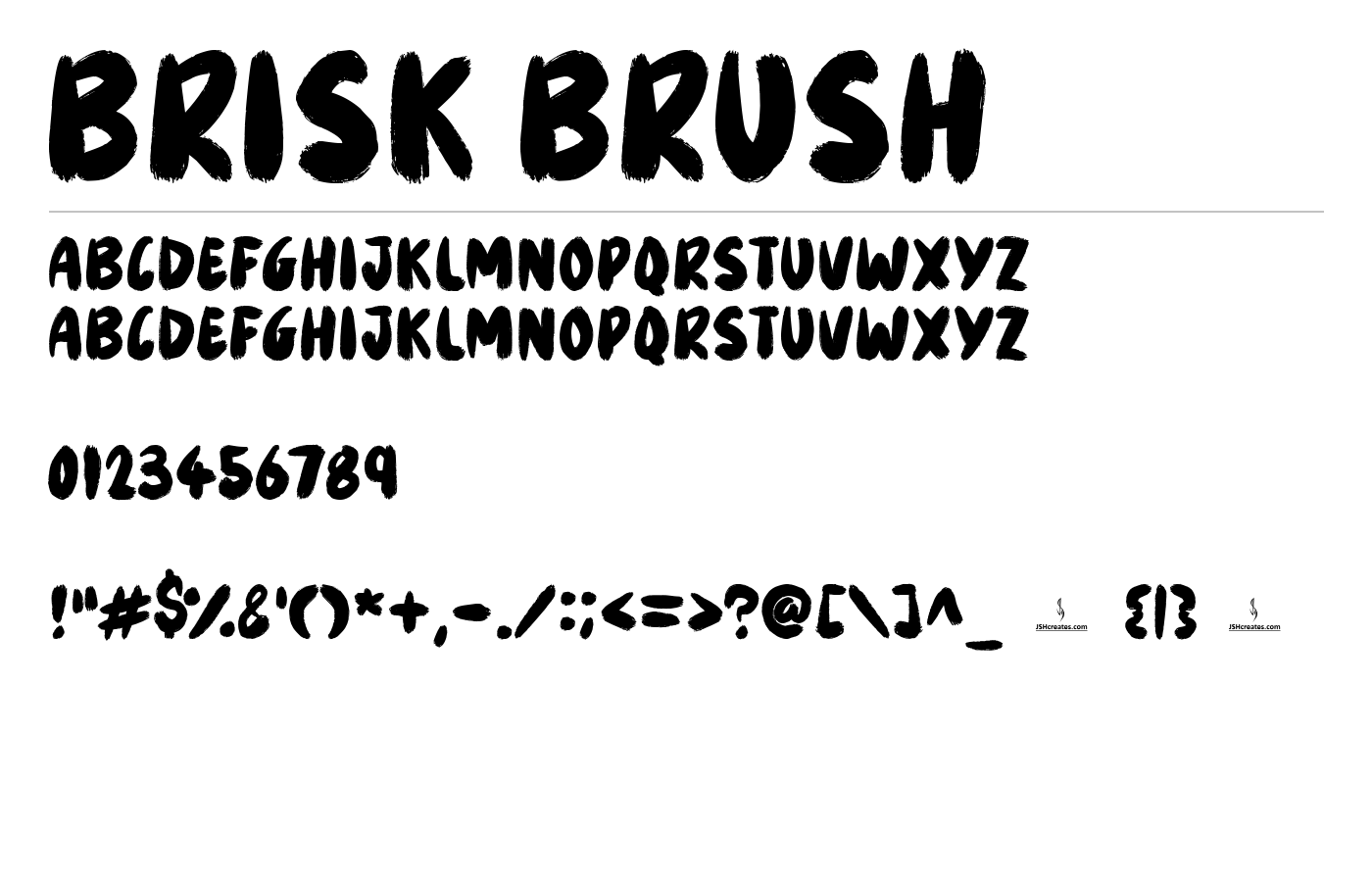
Brisk Brush is a bold, casual brush-style font with a lively and energetic feel, characterized by its thick, textured strokes that mimic hand-painted lettering. Its uppercase letters have a rough, organic look that adds personality and a friendly vibe, making it ideal for creative branding, posters, and informal headlines where a dynamic and approachable style is desired. This font works best in contexts that benefit from a handcrafted, artistic touch, bringing warmth and a sense of spontaneity to any design.
Brisk Brush Font
About Brisk Brush Font